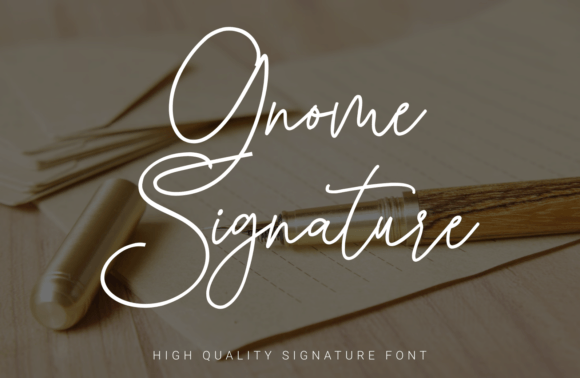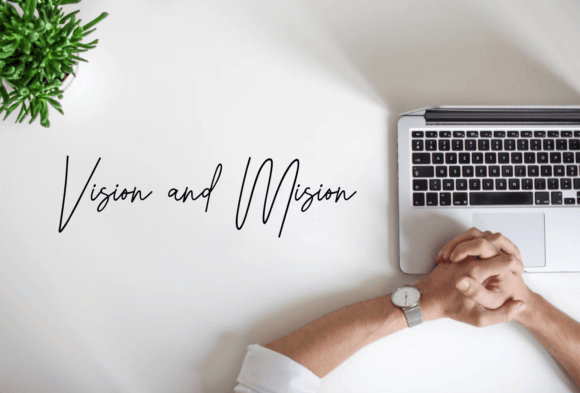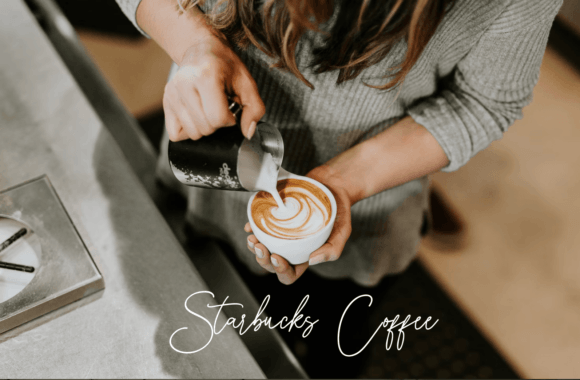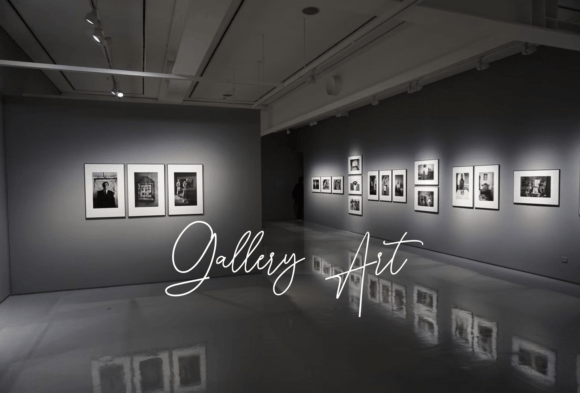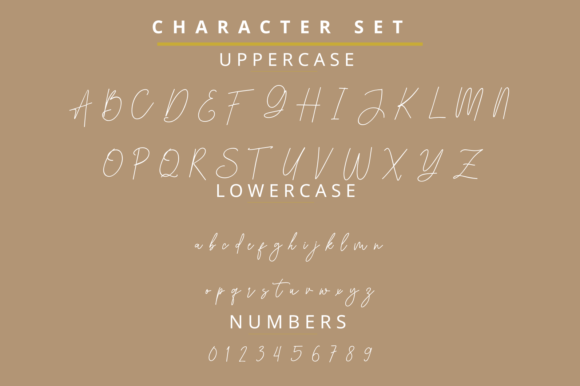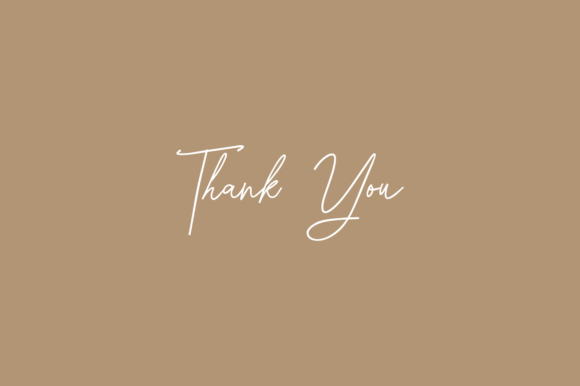
Gnome Signature Font
About Gnome Signature Font
“Gnome Signature” is more than just a font; it’s an elegant script typeface designed to bring a delicate and classy look to your projects. With a balanced and varied style—not too thin and not too thick—this font is crafted to enhance the beauty of your designs.
The delicacy of “Gnome Signature” adds a touch of sophistication to your text, making it well-suited for a range of projects. Whether you’re working on invitations, branding, packaging, or any other creative endeavor, this font’s elegance shines through.
Imagine “Gnome Signature” gracing your invitations, adding a refined and delicate touch to special occasions. Its script style creates an atmosphere of sophistication, making your event details stand out with class.
For branding purposes, “Gnome Signature” becomes a key element in creating a distinct and memorable visual identity. Its balanced and varied design contributes to a refined and timeless brand representation.
In packaging design, the elegance of “Gnome Signature” can be harnessed to create a luxurious and appealing look. The font’s ability to enhance the beauty of your product details makes it a valuable asset for packaging projects.
Whether you’re working on advertising materials, social media posts, or any creative project, “Gnome Signature” serves as a font that brings a touch of class. Its delicate and classy look ensures that it remains a relevant and appealing choice for a variety of design applications.
In essence, “Gnome Signature” is more than just a font; it’s a design companion that adds elegance and sophistication to your projects. Let “Gnome Signature” be the script font that enhances the beauty of your designs, making them stand out with a timeless and classy allure.